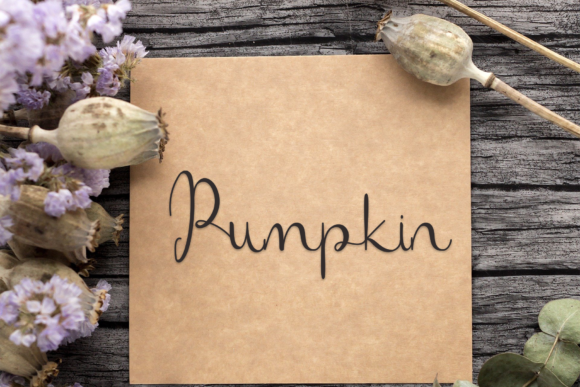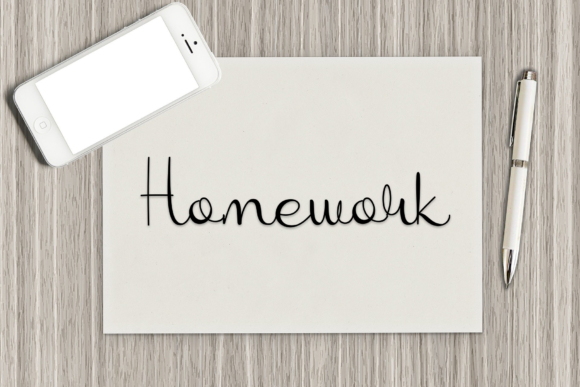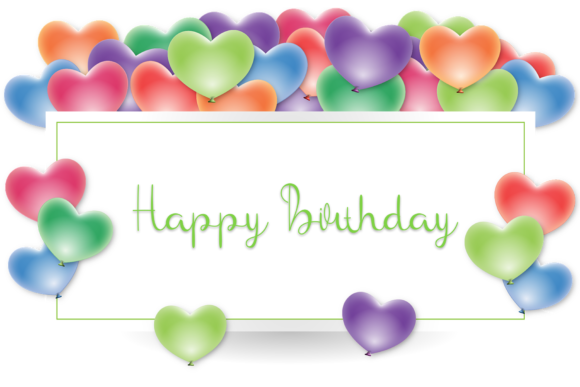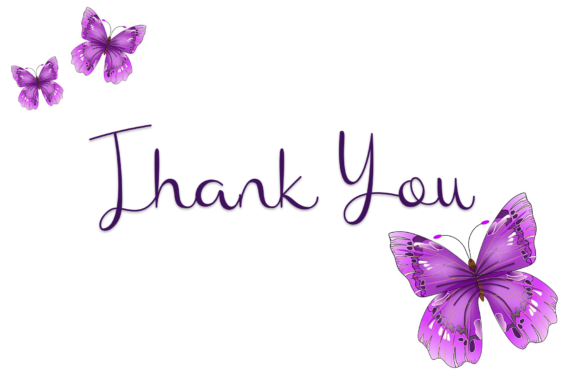
Introducing Christmas Magic Font: Add a Touch of Whimsy to Your Holiday Designs
Are you looking for a font that captures the essence of the holiday season? Look no further than Christmas Magic Font, a lovely script font that features charming, playful characters that seem to dance along the baseline. With its whimsical design, this font is perfect for adding a touch of magic to your holiday projects, from greeting cards and invitations to social media graphics and website headers.
What Makes Christmas Magic Font So Special?
Christmas Magic Font is a unique and eye-catching script font that is sure to make your designs stand out. Its charming, playful characters are designed to evoke the feeling of joy and wonder that comes with the holiday season. Whether you’re a designer, crafter, or DIY enthusiast, this font is perfect for adding a personal touch to your holiday creations.
One of the things that sets Christmas Magic Font apart is its ability to add a touch of whimsy to any design. The font’s playful characters seem to dance along the baseline, giving your text a sense of movement and energy. This makes it perfect for creating eye-catching headlines, titles, and other design elements that are sure to grab attention.
How to Use Christmas Magic Font in Your Designs
Christmas Magic Font is incredibly versatile and can be used in a variety of ways to add a touch of holiday magic to your designs. Here are a few ideas to get you started:
- Greeting Cards and Invitations: Use Christmas Magic Font to create custom greeting cards and invitations that are sure to impress your friends and family. Whether you’re inviting guests to a holiday party or sending a seasonal greeting, this font is perfect for adding a personal touch.
- Social Media Graphics: Add a touch of holiday cheer to your social media graphics with Christmas Magic Font. Use the font to create eye-catching headlines, titles, and other design elements that are sure to grab attention.
- Website Headers: Give your website a holiday makeover with Christmas Magic Font. Use the font to create a festive header that sets the tone for your holiday content.
- Crafting Projects: If you’re a crafter, you’ll love using Christmas Magic Font to add a personal touch to your holiday projects. Use the font to create custom titles, labels, and other design elements for your holiday crafts.
Tips for Getting the Most Out of Christmas Magic Font
To get the most out of Christmas Magic Font, here are a few tips to keep in mind:
- Use it sparingly: While Christmas Magic Font is a beautiful font, it’s best used sparingly. Use it to create eye-catching headlines, titles, and other design elements, but avoid overusing it in your designs.
- Pair it with complementary fonts: To create a visually appealing design, pair Christmas Magic Font with complementary fonts. A simple sans-serif font or a classic serif font can provide a nice contrast to the playful script font.
- Experiment with colors: Don’t be afraid to experiment with different colors when using Christmas Magic Font. The font looks great in traditional holiday colors like red and green, but it can also be used with more modern color schemes.
Christmas Magic Font is a lovely script font that is sure to add a touch of whimsy to your holiday designs. With its charming, playful characters and versatile design, this font is perfect for designers, crafters, and DIY enthusiasts alike. Whether you’re creating greeting cards, social media graphics, or website headers, Christmas Magic Font is the perfect choice for adding a personal touch to your holiday creations. So why wait? Download Christmas Magic Font today and start adding a touch of holiday magic to your designs!